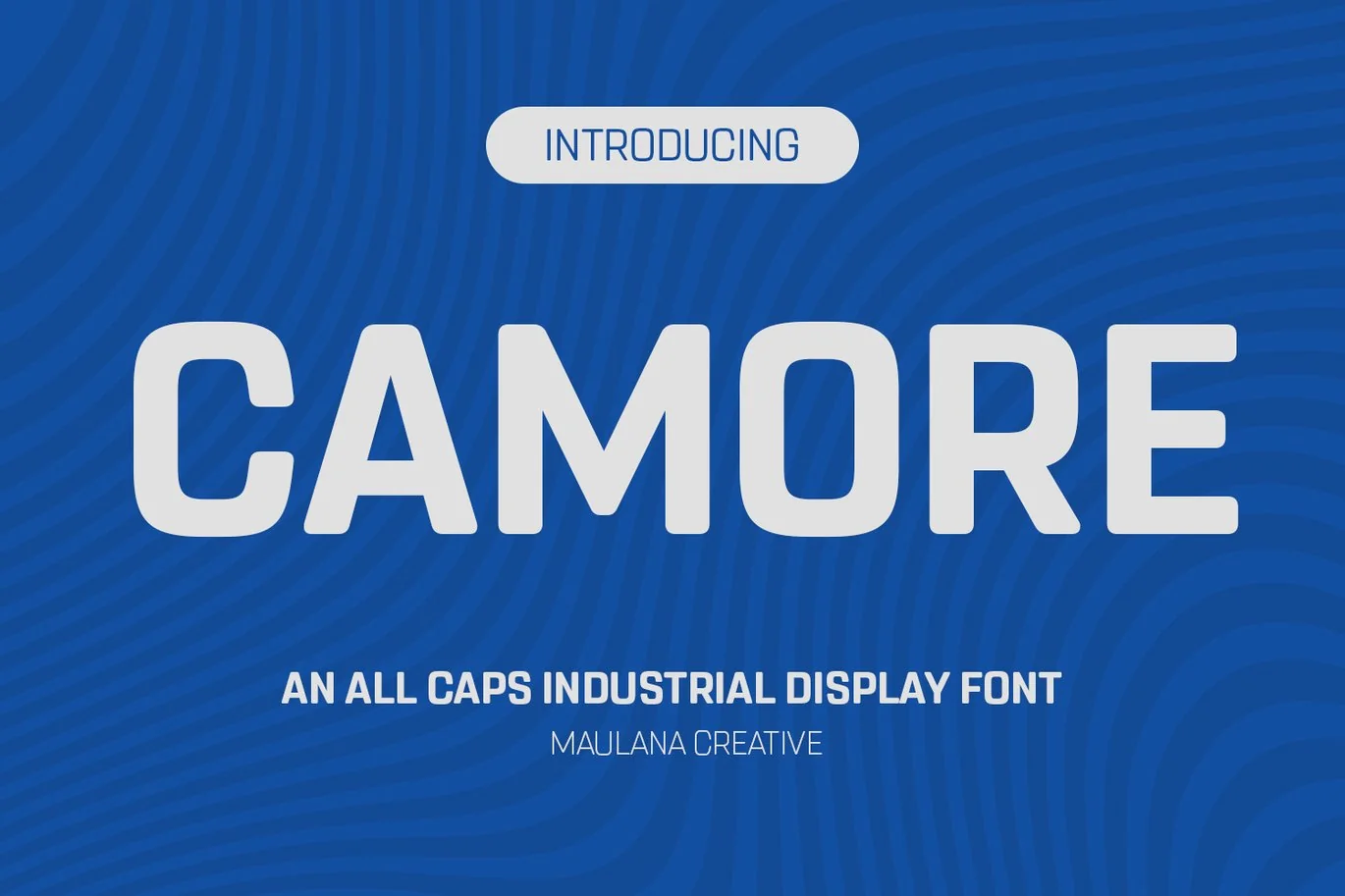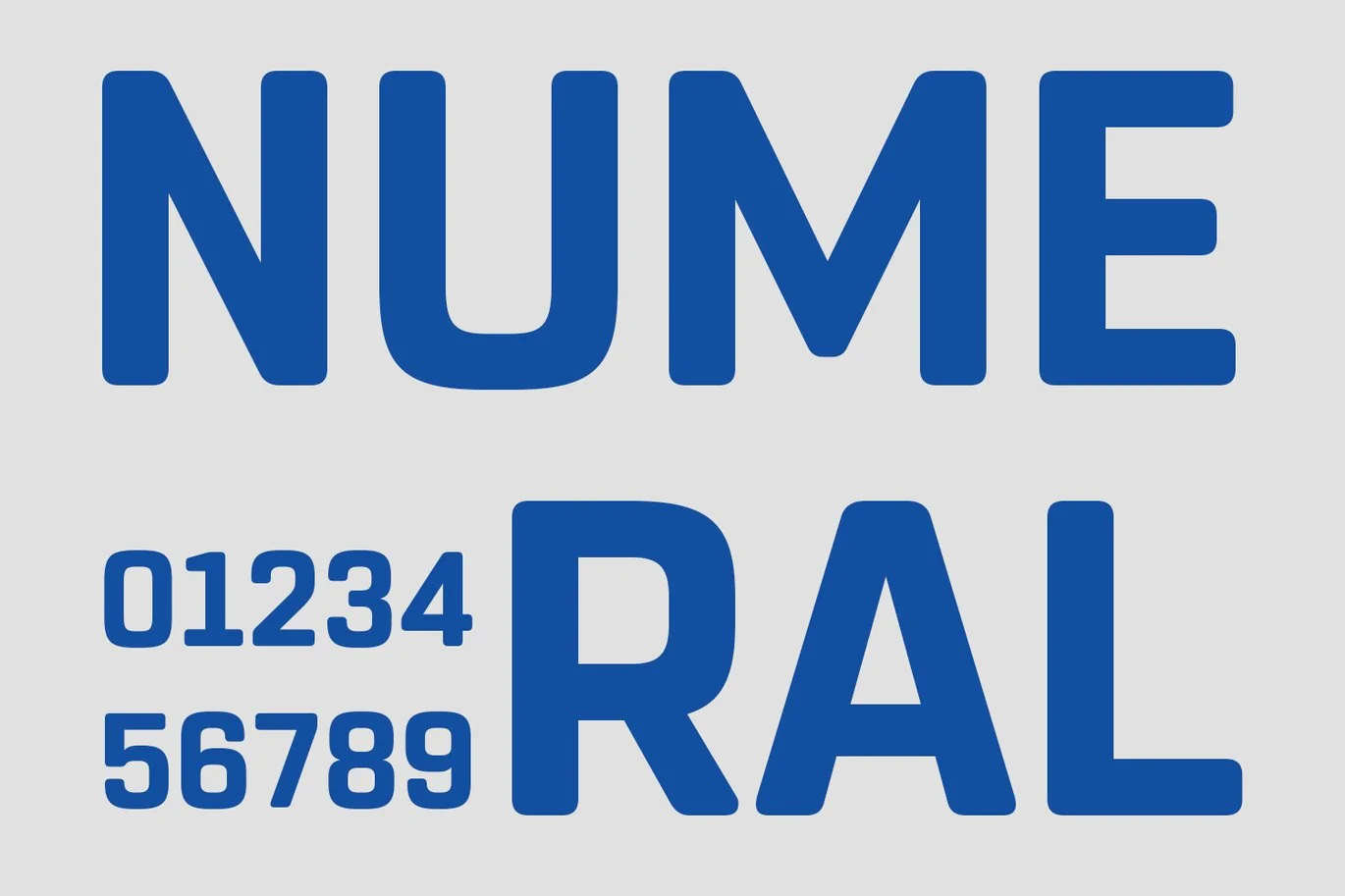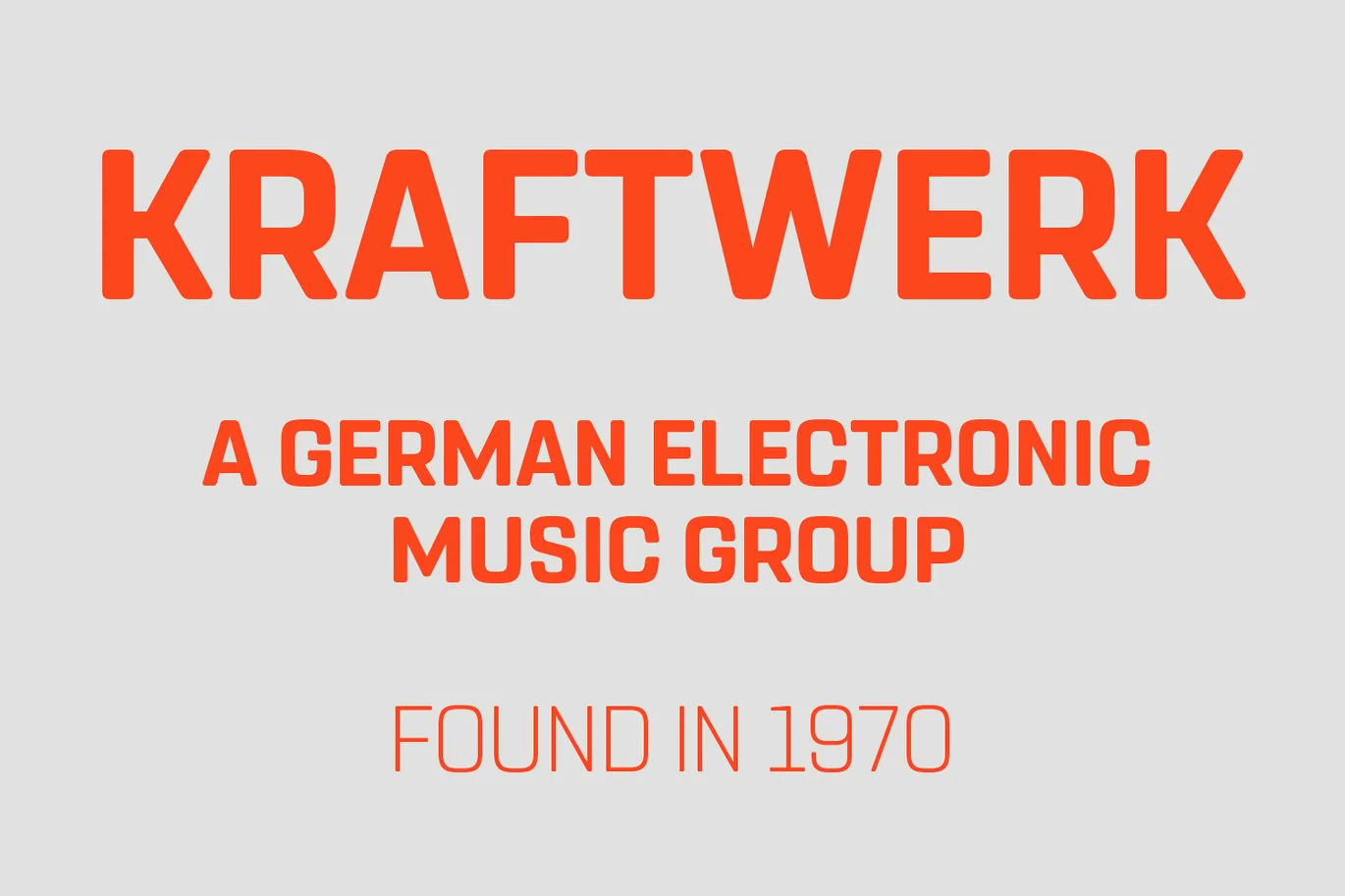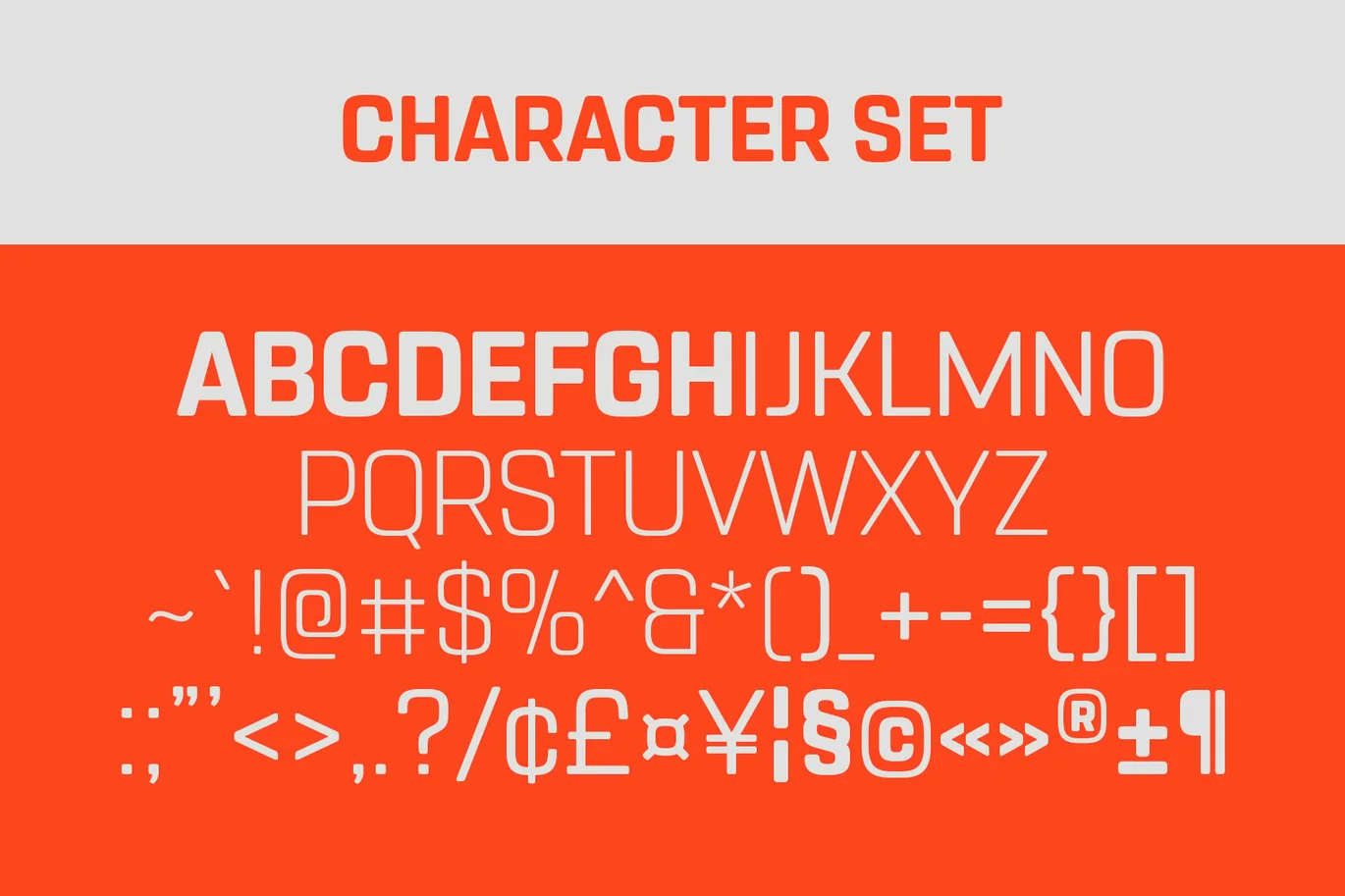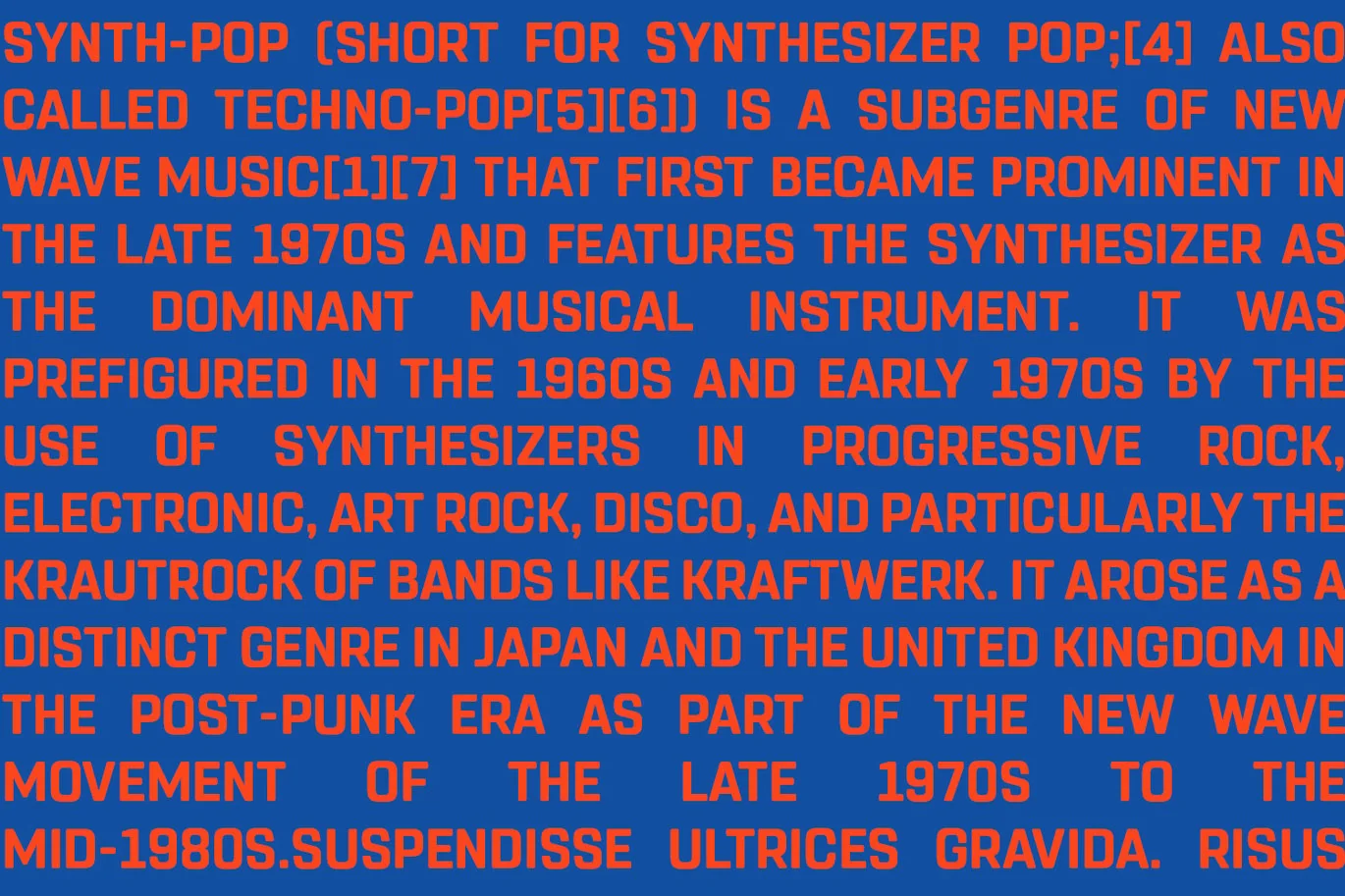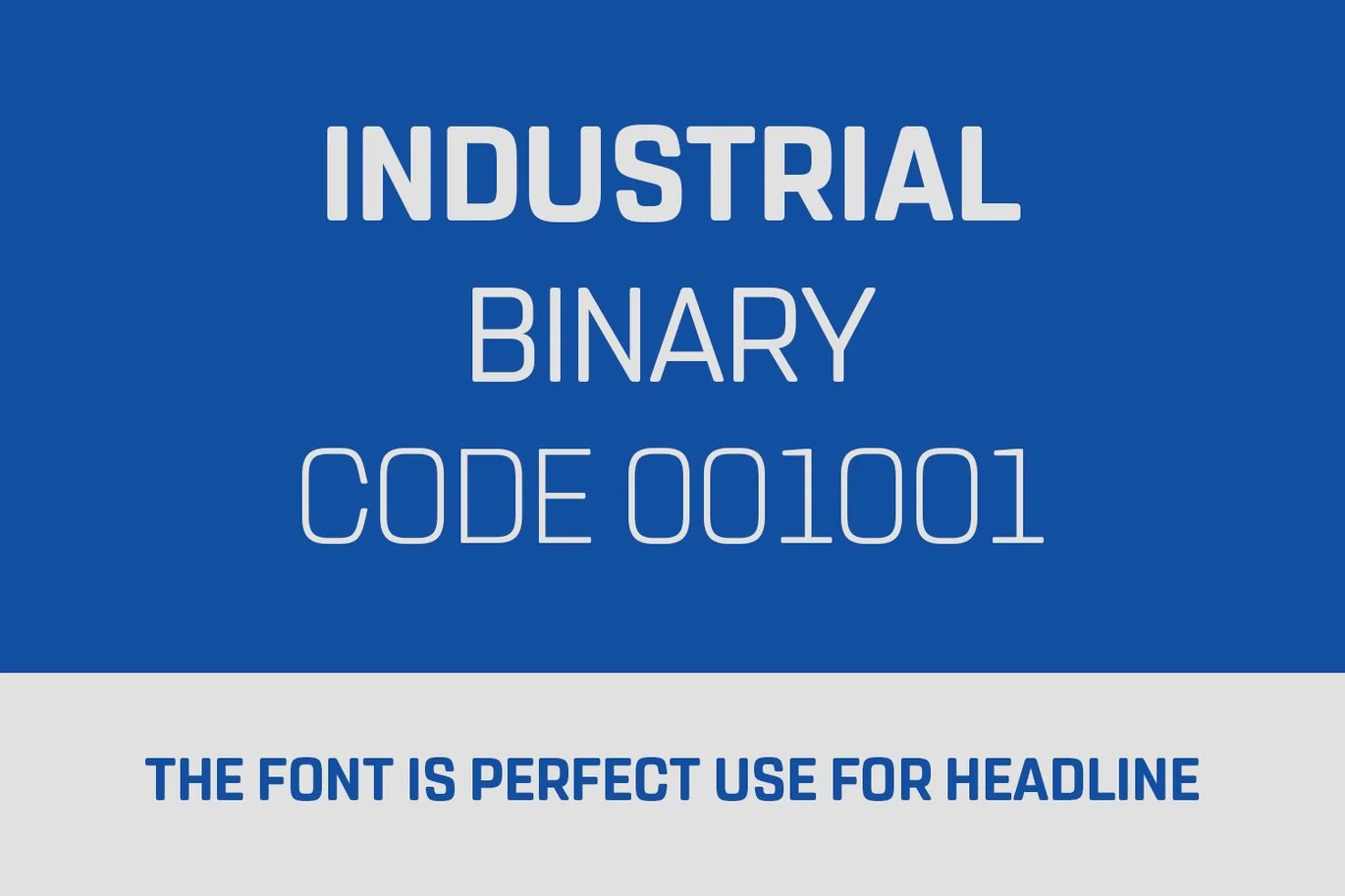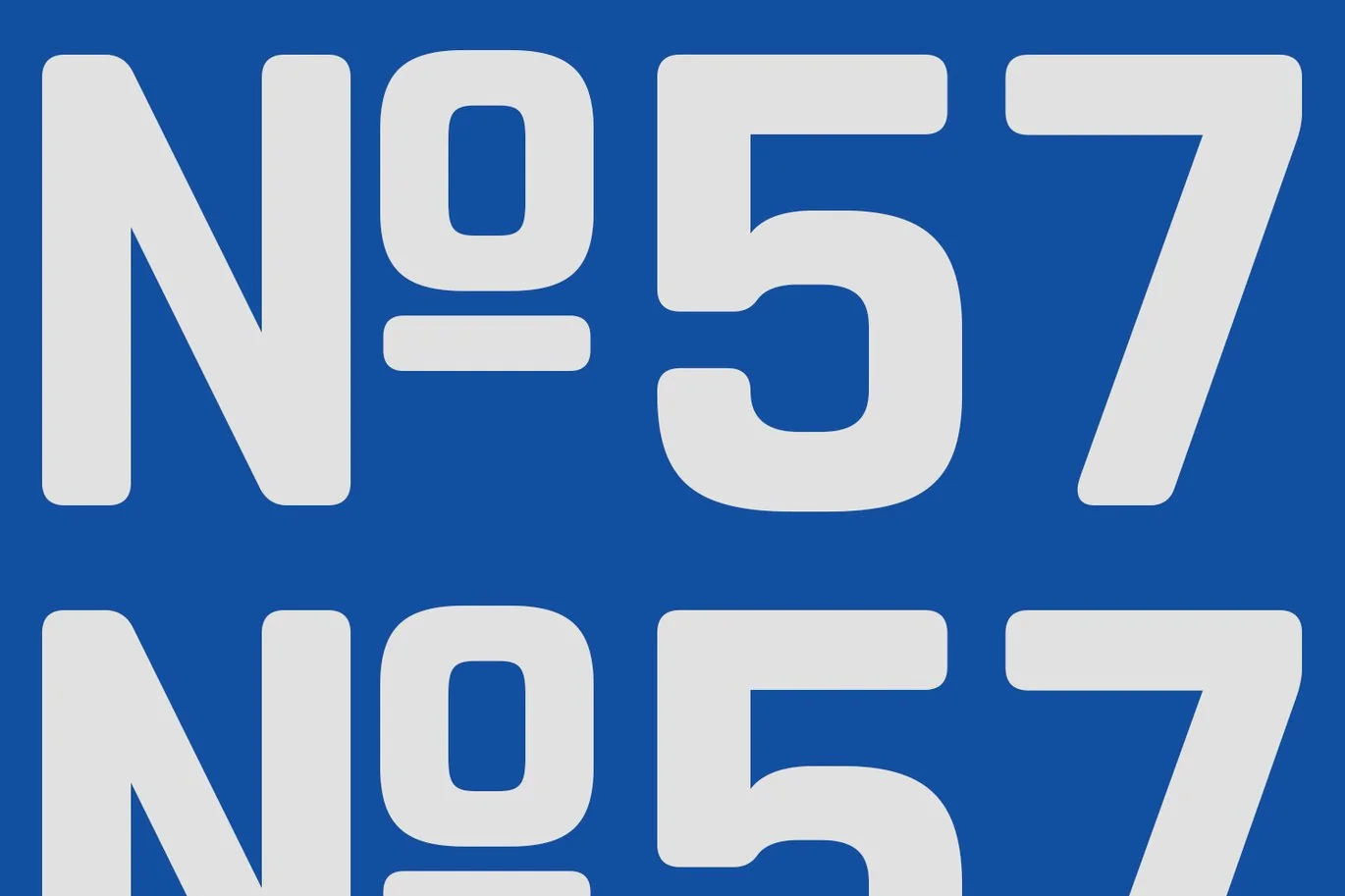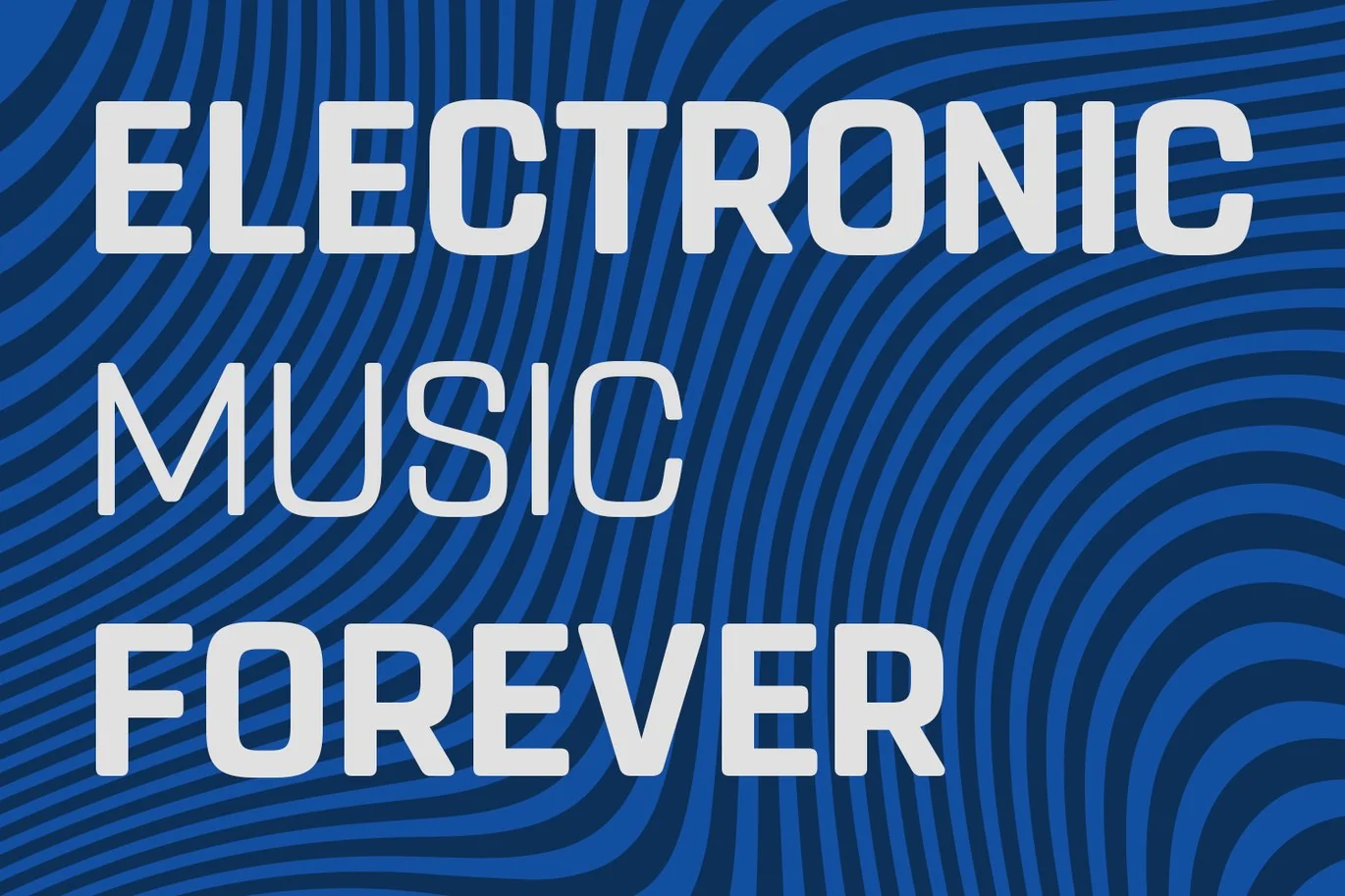
Camore Sans Serif All Caps Font
Camore is an all caps font. With 3 weights stroke, fun character. To give you an extra creative work. Camore font support multilingual more than 100+ language. This font is good for logo design, Social media, Movie Titles, Books Titles, a short text even a long text letter and good for your secondary text font with script or handwritting. Make a stunning work with Camore font.